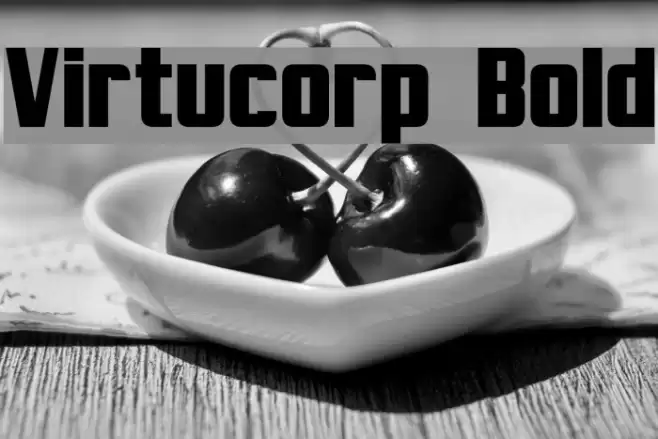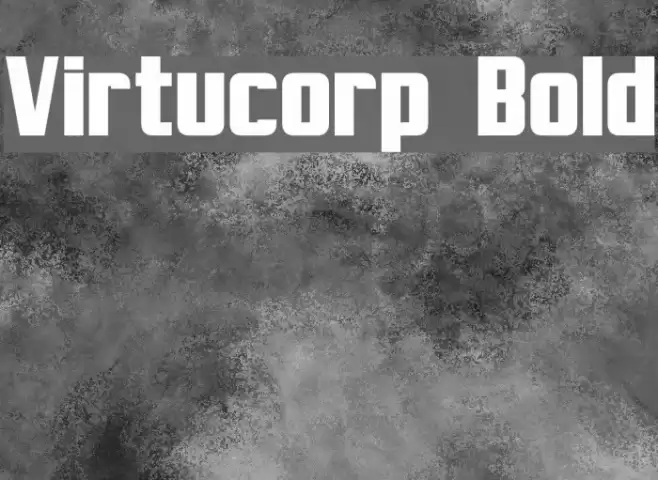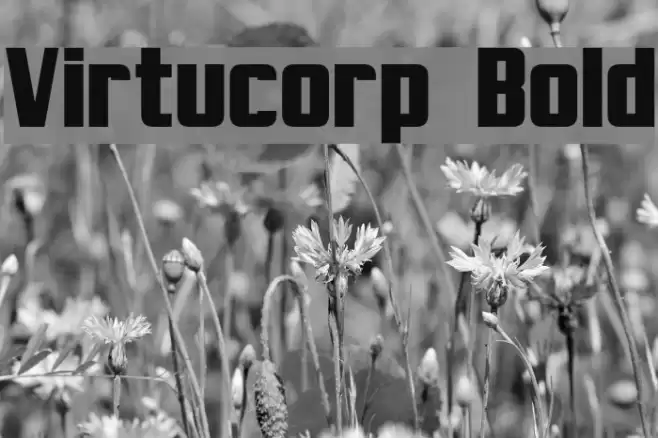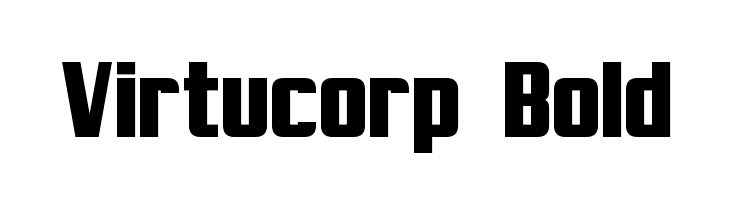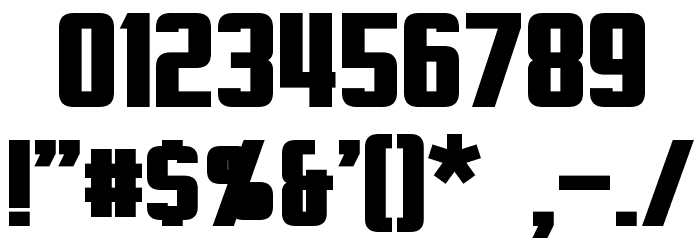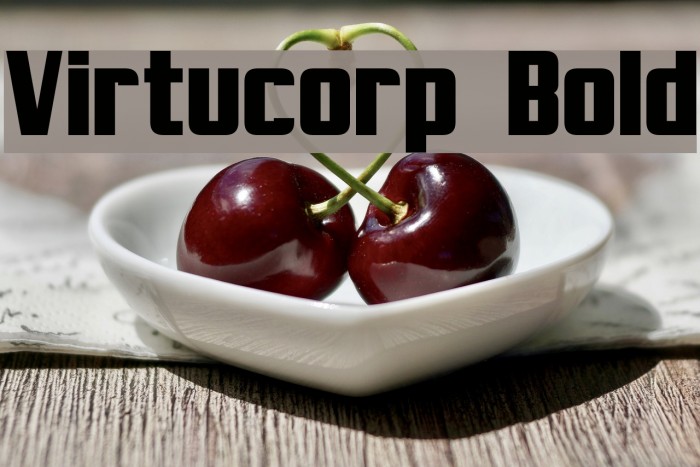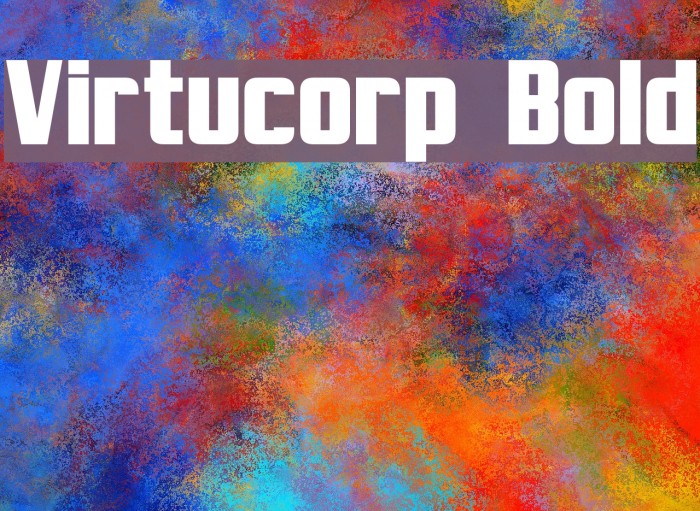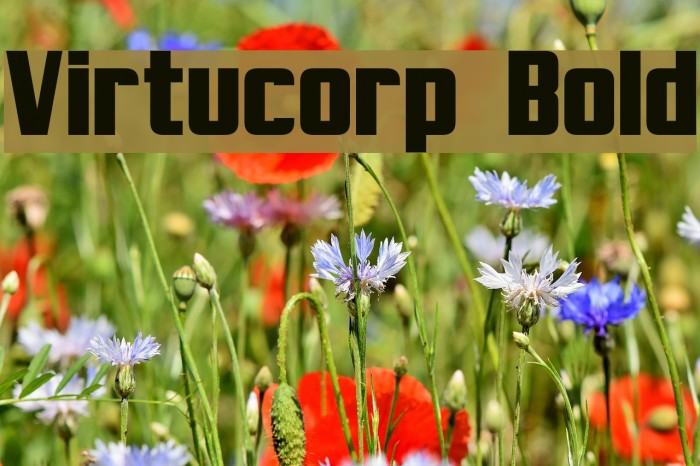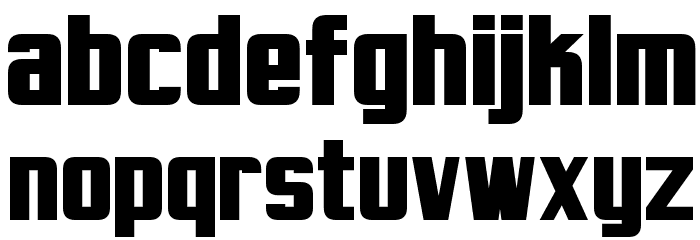
Virtucorp Bold Font
Virtucorp Bold Description
This font exhibits a bold and assertive style, characterized by thick, uniform strokes that convey strength and stability. The uppercase letters are particularly striking, with a block-like appearance that ensures high visibility and impact. The lowercase letters maintain the same robust quality, providing a consistent look across different text cases. The numerals are equally bold, making them ideal for situations where clarity and emphasis are required. Special characters are designed with the same attention to detail, ensuring they integrate seamlessly with the rest of the font. Overall, this font is perfect for projects that require a strong, modern aesthetic.
A bold, modern font with thick, uniform strokes for high impact from Uncategorized fonts.